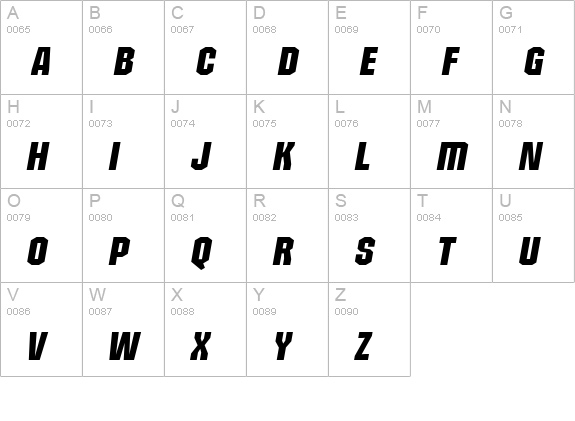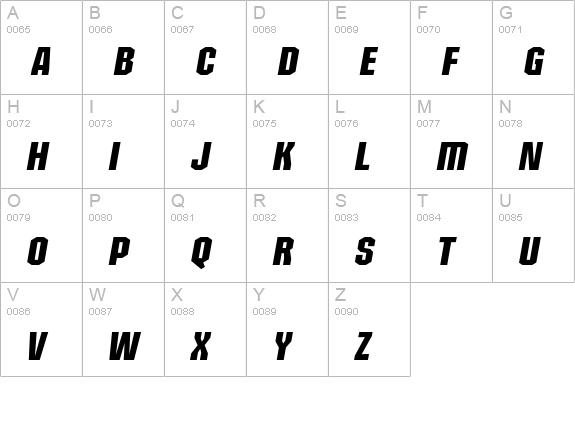
Structia Rg Italic Font Details
Structia Rg Italic is a distinctive, italic variant in the Structia typeface family \xE2\x80\x94 well suited to design and typography projects.
Structia Rg Italic font is a stylish and elegant typeface that exudes sophistication and modernity. With its sleek and streamlined design, this font is perfect for adding a touch of class to any project. The italic style adds a sense of flair and dynamism, making it ideal for conveying a sense of movement and energy. What sets Structia Rg Italic font apart is that it is available for free download at FontsMarket.com. This means that you can easily access this high-quality font without any cost, making it an excellent choice for designers and creatives looking to elevate their work without breaking the bank. Whether you're designing a website, creating a logo, or crafting a visual identity, Structia Rg Italic font is sure to make a lasting impression. Its versatility and timeless appeal make it a must-have in any designer's toolkit. Download it for free today and take your projects to the next level!